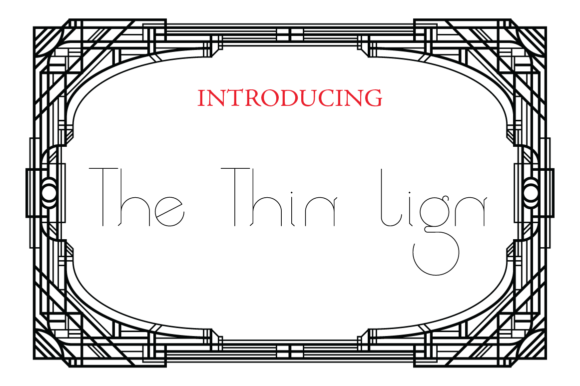
Step into a world of elegance and sophistication with The Thin Lign Font, a creation of hamelinckmichael. This sans-serif masterpiece embodies the timeless allure of art deco design, inviting you to explore its exquisite beauty in your creative endeavors.
With its sleek lines and rounded edges, The Thin Lign Font exudes a touch of warmth and charm, ensuring your projects radiate with a unique personality. Whether you're crafting themed masterpieces or embarking on print projects, The Thin Lign Font is your perfect companion, promising to elevate your designs to new heights.
Immerse yourself in the font's versatile nature, allowing your creativity to flow effortlessly across a wide range of projects. From logos and branding to posters and invitations, The Thin Lign Font seamlessly adapts, adding an air of sophistication and elegance to each creation. Unleash your imagination and witness the transformation of ordinary designs into captivating works of art.
The Thin Lign Font is a tribute to the golden age of art deco, capturing the essence of luxury, glamour, and timeless style. Its meticulously crafted characters evoke a sense of nostalgia, while its contemporary touch ensures it remains relevant and captivating in the modern digital landscape.
Experience the magic of The Thin Lign Font today and elevate your creative projects to new heights. Embrace the beauty of art deco, and let your designs shine with an unmatched elegance that will leave a lasting impression.